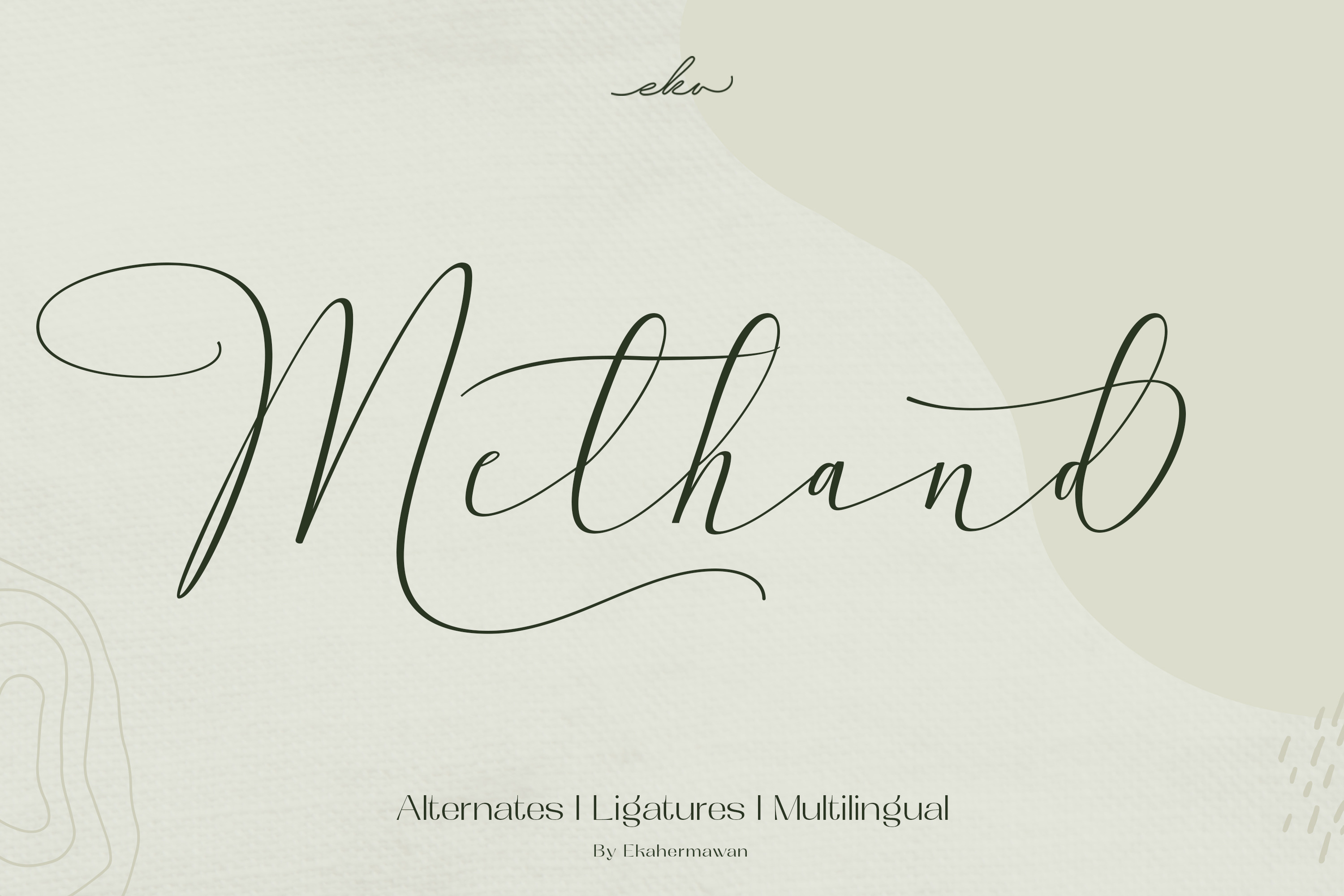
Methand - Script Font
Introducing Methand – A Handwritten Script with Elegance and Charm!" Methand is the perfect choice for adding a personal, stylish touch to your projects. This beautifully crafted script font brings life to everything from wedding invitations and logos to social media posts, product packaging, posters, movie headings and more. With its smooth, flowing curves and natural hand-drawn feel, Methand is versatile and easy to use—whether you’re aiming for a chic, modern look or a warm, playful tone. Add personality to your designs with Methand – where creativity flows effortlessly with every stroke!